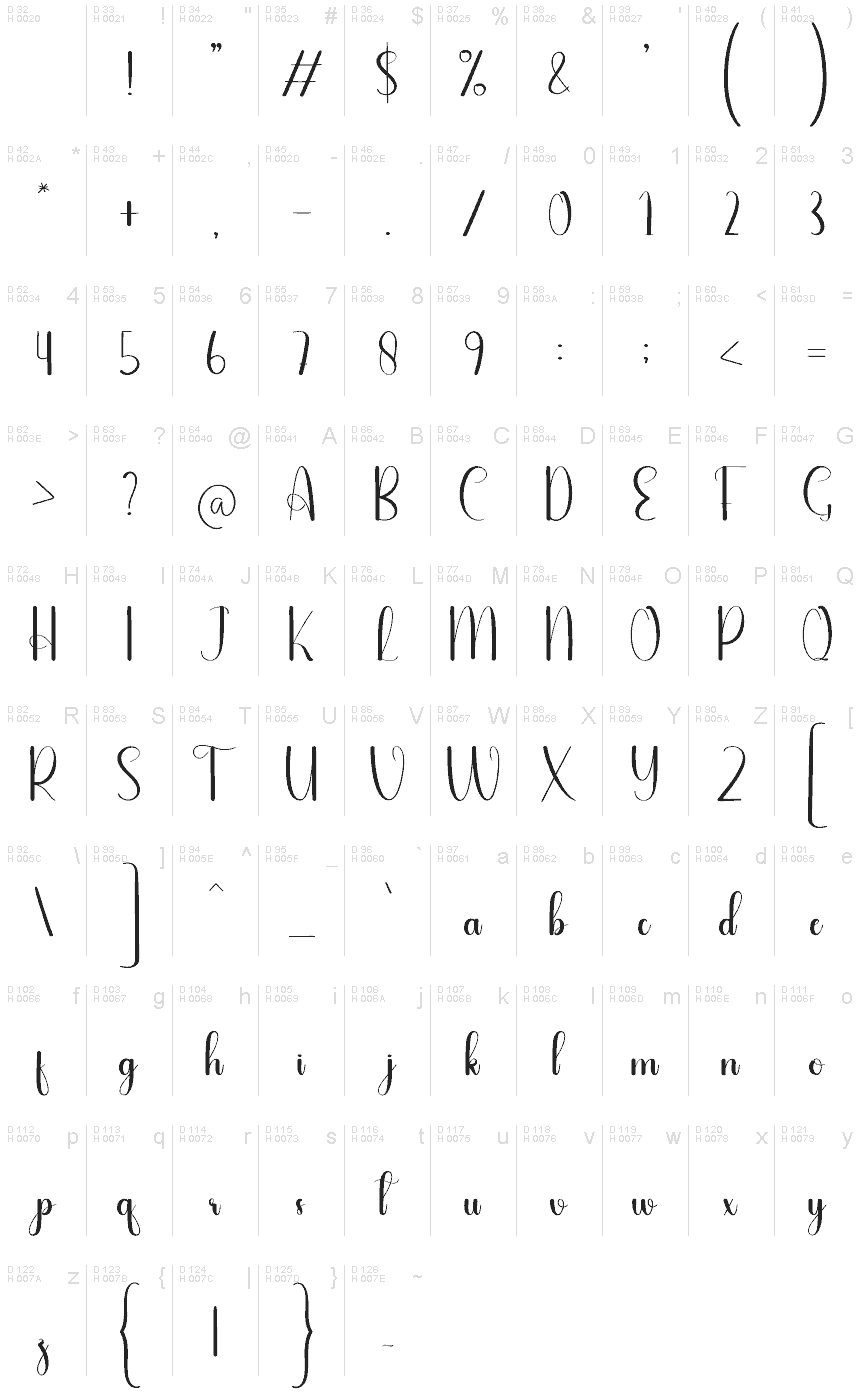
Baby Butter
Baby Butter font by Andi Moz is a smooth and attractive work of art dedicated to typography-lovers. Its calligraphy letters get their fluffy appearance from various rounded swells placed along the stems, together exhibiting elegance through soft movements. Get creative and design new projects with this apt free resource.
Craft romantic designs such as wedding invitations & cards, greeting cards, album covers, letterheads or posters. Even branding identities concerned with women, garments, perfumes like logos or packaging can be delivered using this brilliant typeface. Blogs, websites and social media pages are also part of the acceptable usecases for this font.